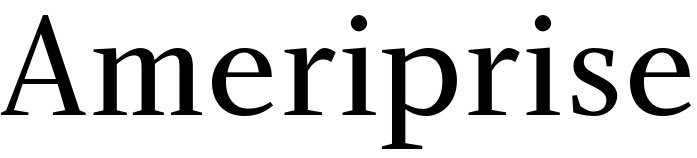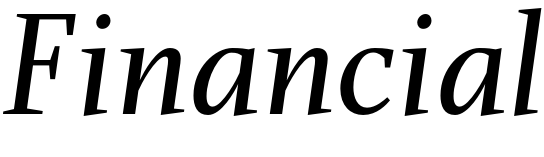
Ameriprise Financial Font
FinanceAmeriprise Financial is a financial services company that offers investment and retirement planning, insurance, and wealth management solutions.
The Ameriprise Financial logo features the fonts Charlotte Serif Book and Charlotte Serif Book Italic with a modified letter "A". Charlotte, designed by Michael Gills, is a roman typeface with unbracketed serifs and a vertical stress.